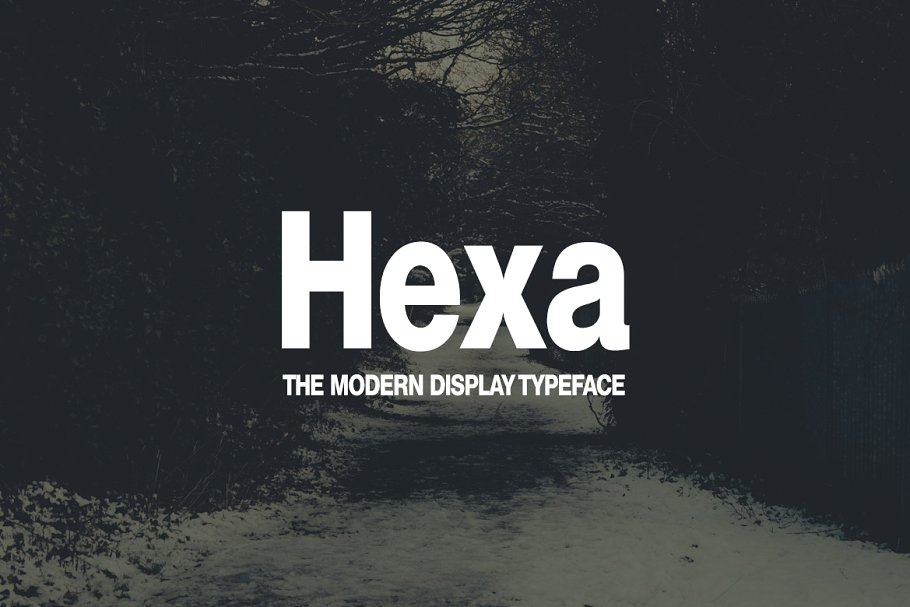
Hexa Font
Hexa Font is perfect for modern technology companies, geometric design studios, scientific research institutions, mathematical publications, engineering consulting firms, and systematic digital platforms. Its structured character makes it ideal for software development agencies, architectural visualization companies, data analytics platforms, blockchain technology brands, molecular research labs, and any project requiring precise geometry with hexagonal precision and scientific methodology excellence.
This font is exciting because it embodies the fundamental principles of hexagonal geometry and systematic design thinking while delivering exceptional functionality for technical and scientific communications. The precisely engineered letterforms reflect the efficiency and natural perfection found in hexagonal structures throughout nature and technology, creating typography that appeals to audiences who appreciate mathematical beauty, systematic organization, and scientific precision.
The Hexa Font family typically includes Light, Regular, Medium, and Bold weights with geometric alternates, mathematical ligatures, and systematic elements that enhance its structured personality. This comprehensive collection enables designers to create authoritative brand systems that maintain scientific credibility while providing flexibility for various technical applications requiring both precision and contemporary aesthetic appeal.
Whether you're developing identity systems for technology corporations, creating materials for scientific conferences, or designing interfaces for analytical software platforms, Hexa Font Free Download delivers the geometric precision and scientific authority that resonates with technical professionals worldwide. Its systematic presence ensures professional recognition across digital platforms and print materials, making it perfect for websites, mobile applications, and technical campaigns that celebrate mathematical elegance, systematic thinking, and the powerful beauty of geometric perfection with contemporary scientific standards and uncompromising technical excellence.